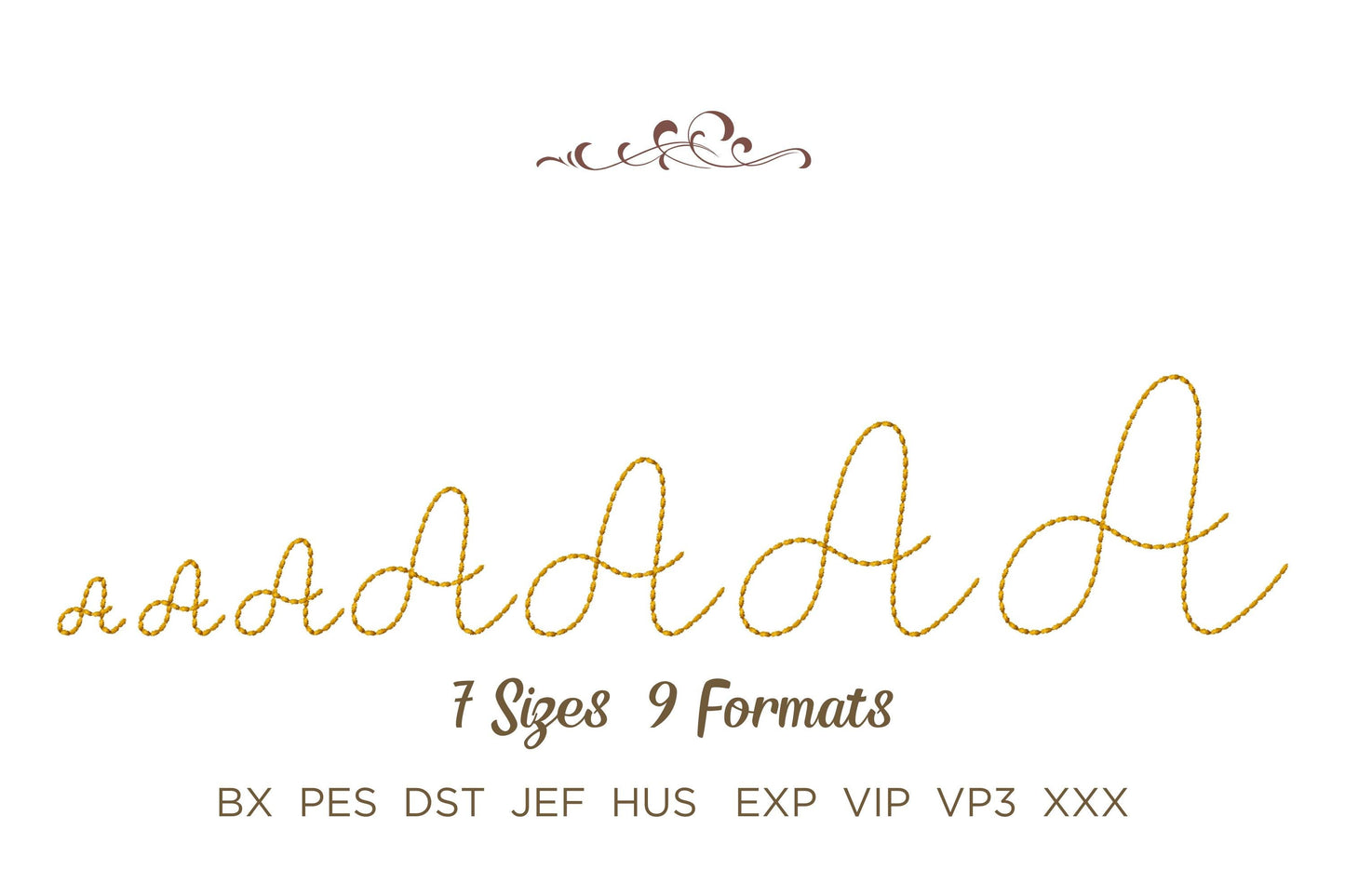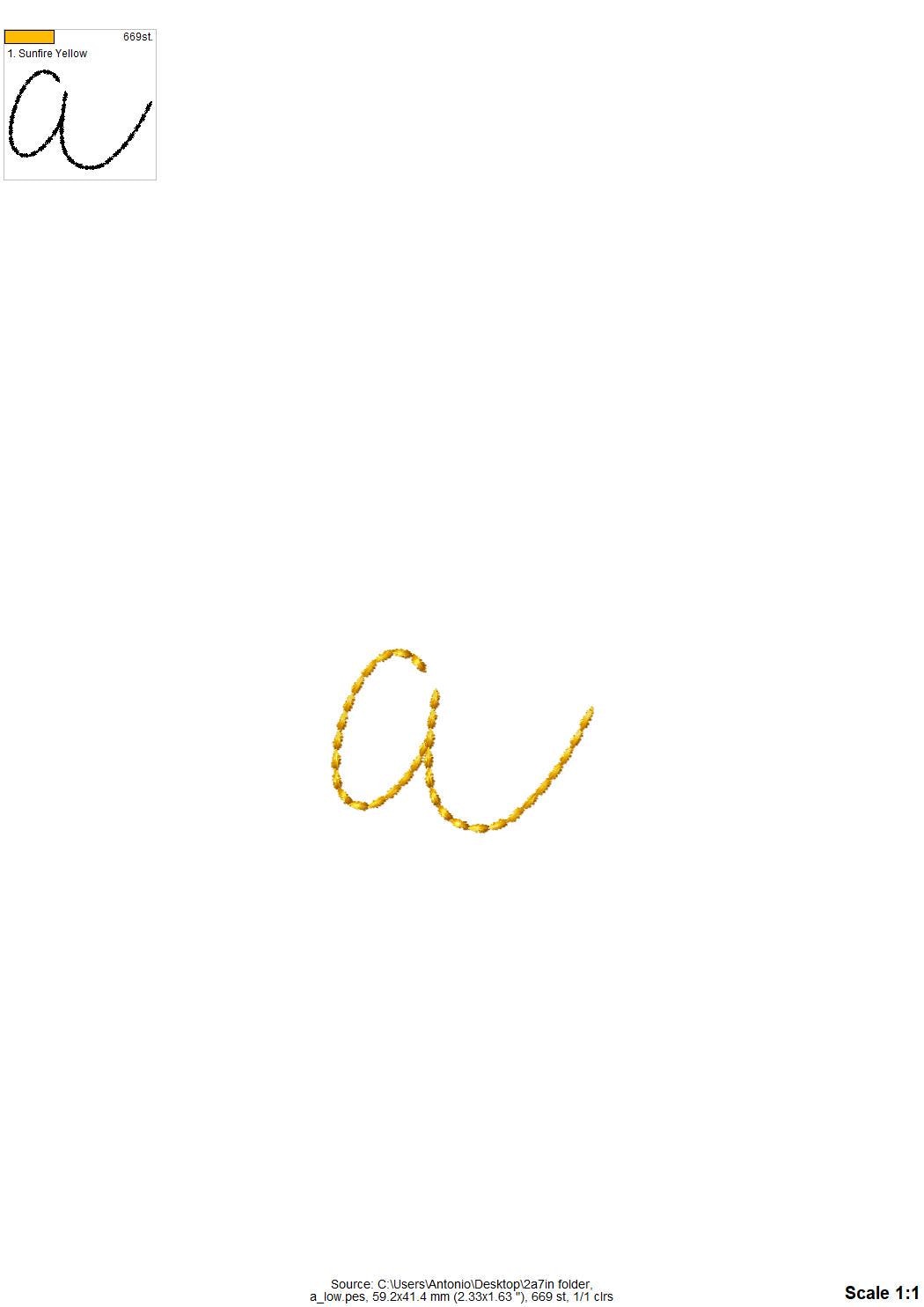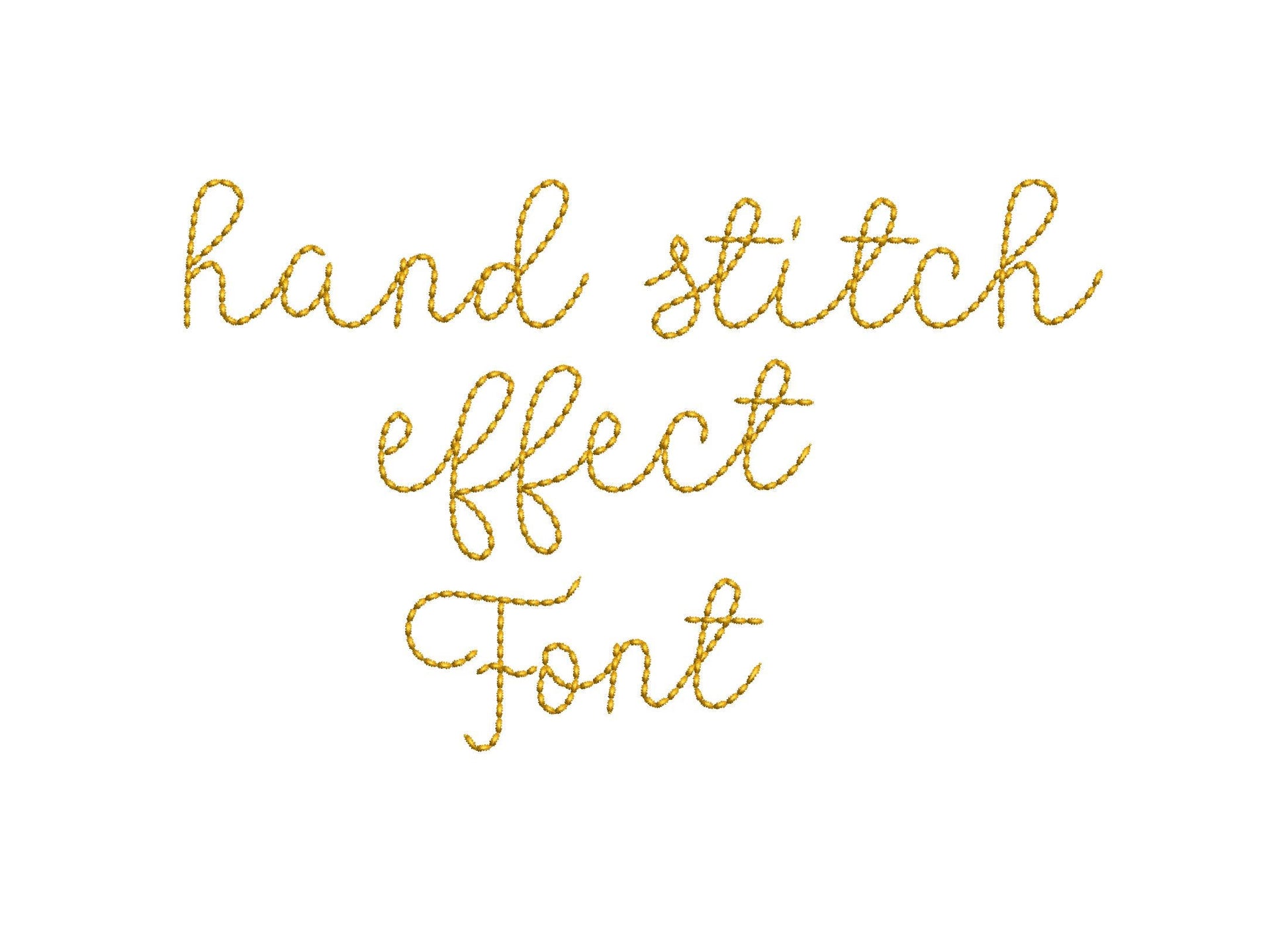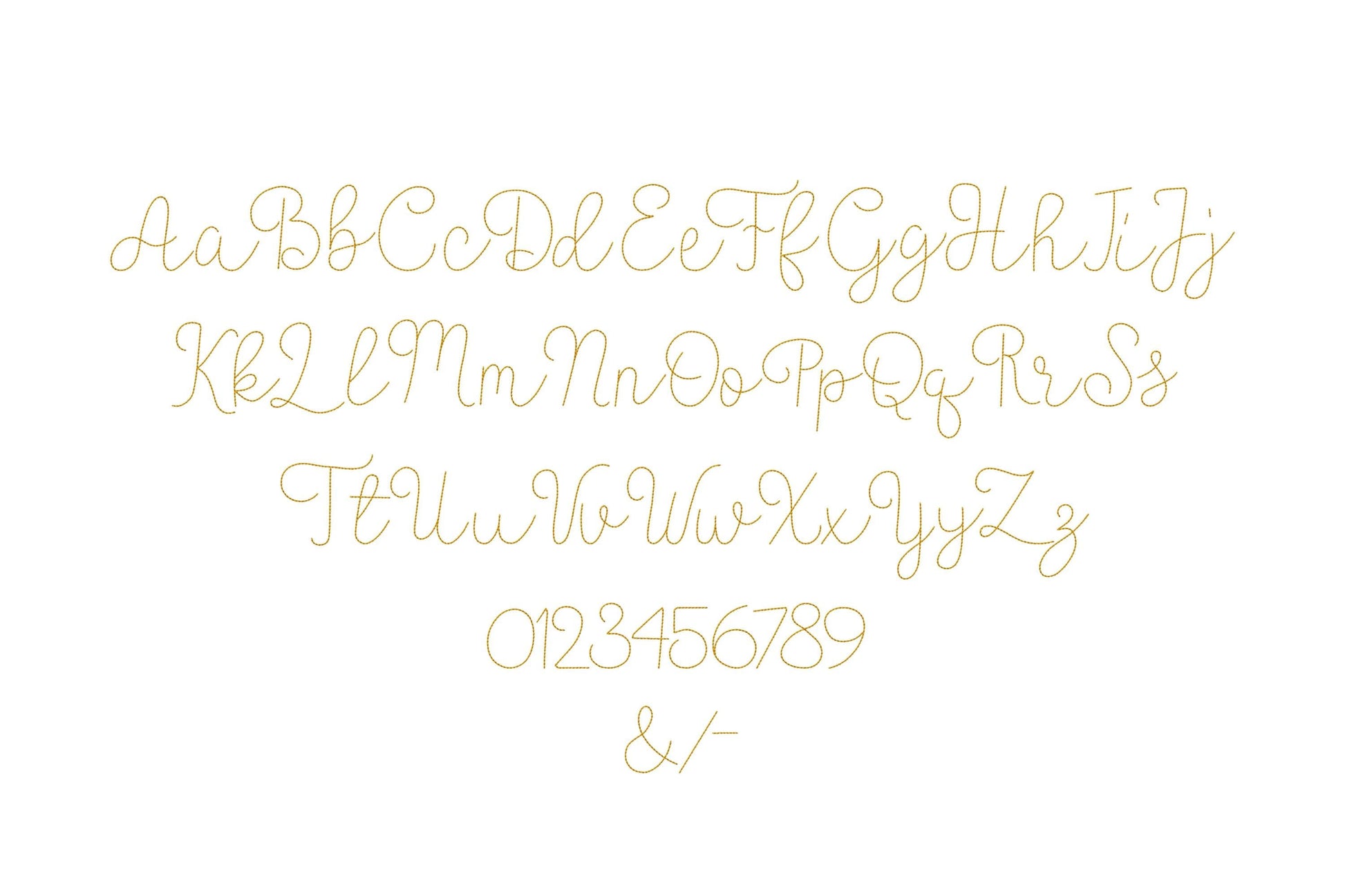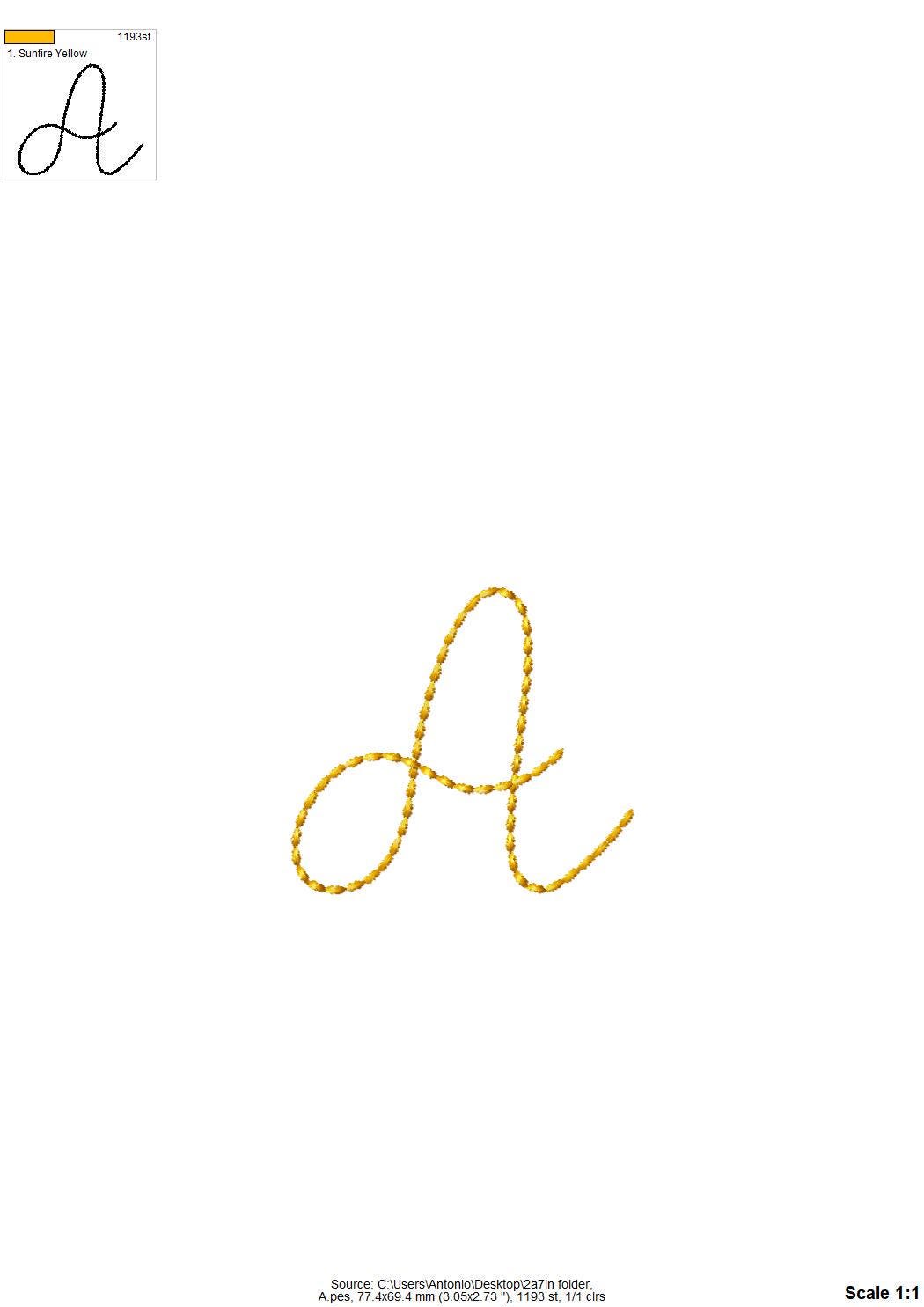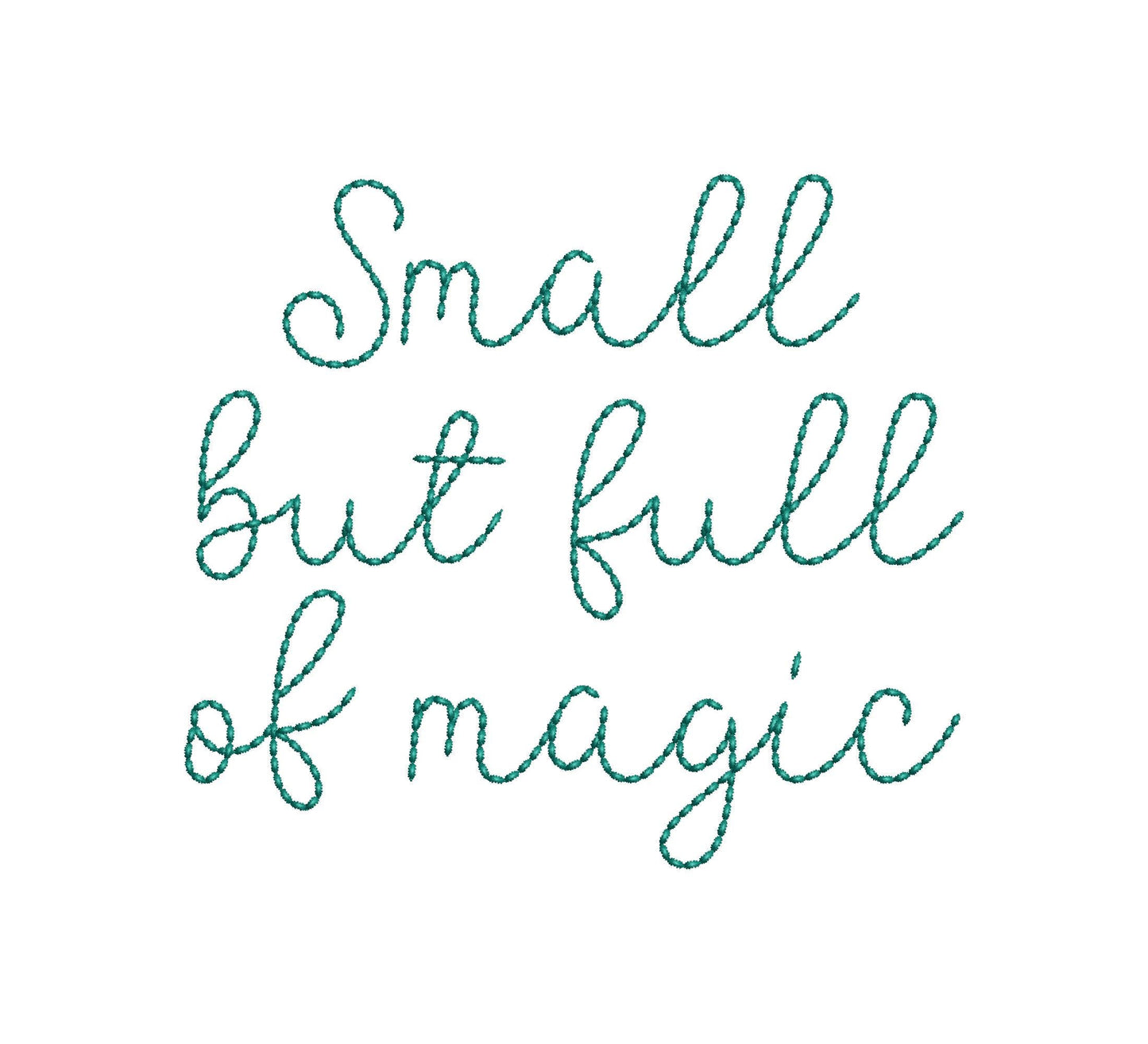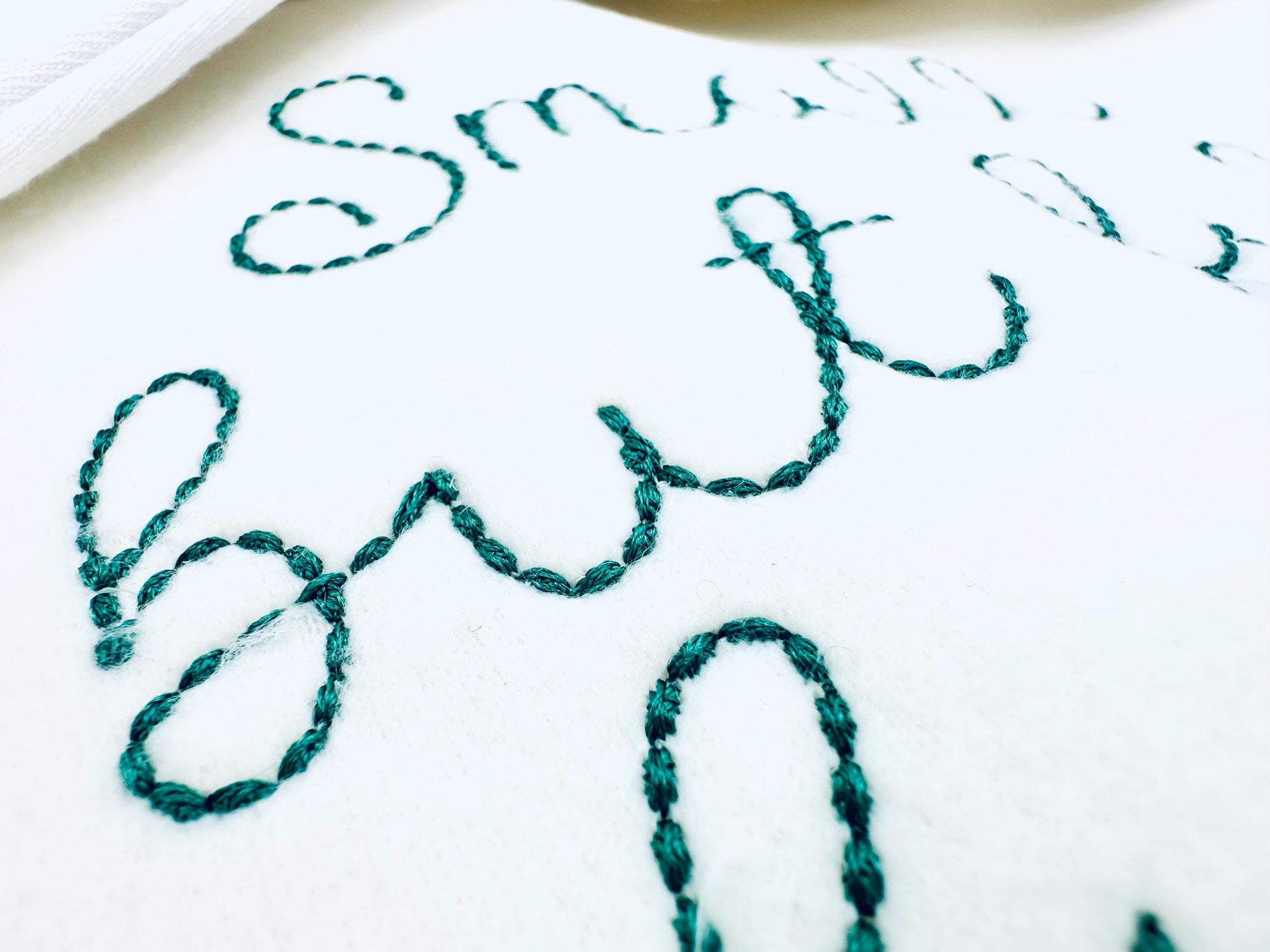
Hand Stitch Effect Font Tala
Sizes (inches): 1", 1.2", 1.5", 2.2", 2.7", 3.3", 4"
Or click to open the linkA handwritten script font with a hand-stitched look, made in seed stitch. Sweet for kids' and baby names on necklines and small gifts.
The letters come in seven sizes: 1, 1.2, 1.5, 2.2, 2.7, 3.3 and 4 inches. A light seed stitch gives each letter the look of hand embroidery. Includes uppercase and lowercase letters, numbers 0 to 9 and the signs & - /
- Hand stitch effect script font, seed stitch
- Uppercase and lowercase letters, numbers 0 to 9, & - /
- 7 sizes, 1 to 4 in